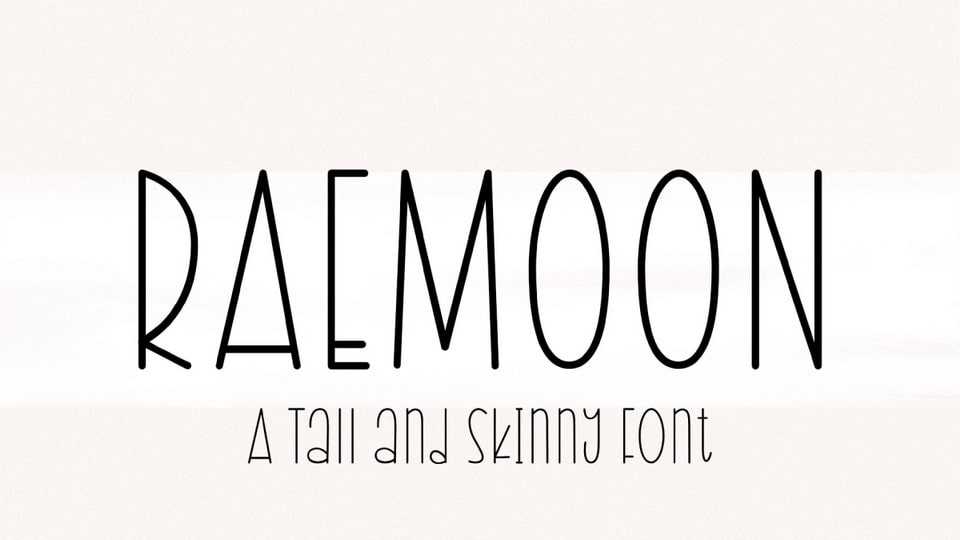
Download Raemoon font, a tall and skinny handwritten typeface perfect for signs! Simple and versatile, Raemoon font is perfect for chic farmhouse decor look, home decor, cards, and farmhouse living.